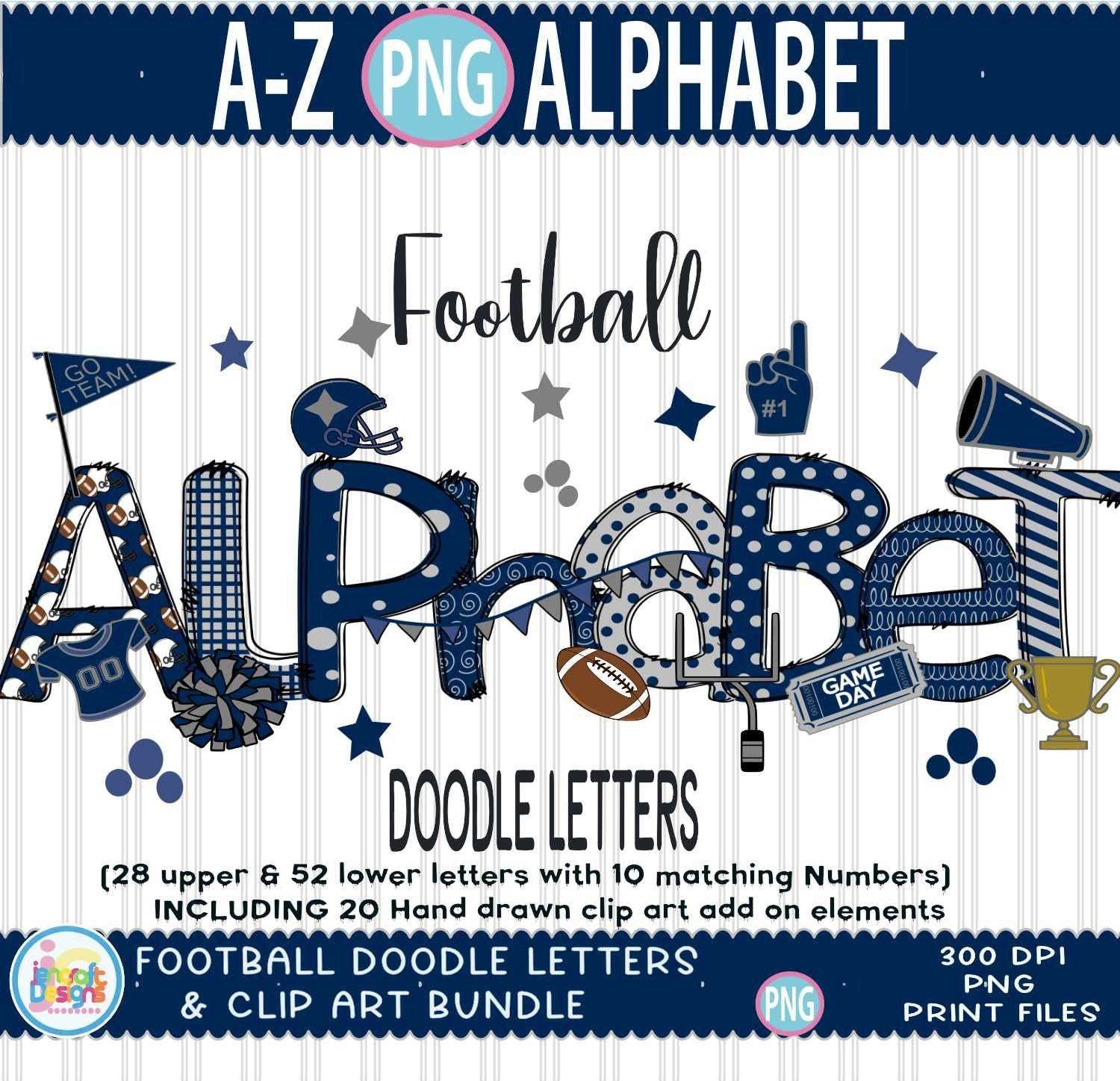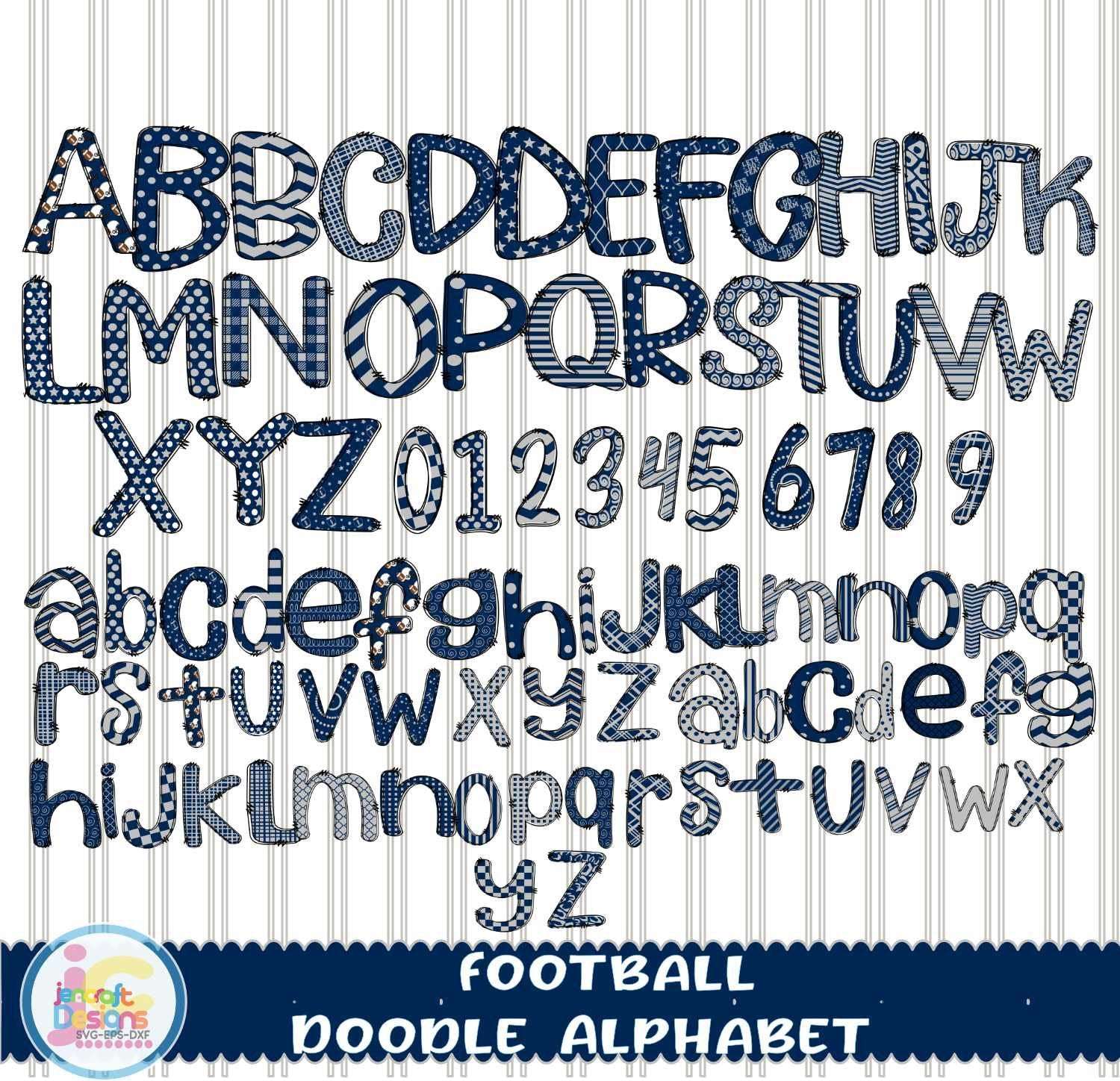
Football Doodle Letters PNG | Blue & Grey Alphabet Sublimation Bundle
Rep your team in style with this Blue & Grey Football Doodle Letters PNG Bundle — a hand-drawn game day alphabet set in bold blue and grey team colors, perfect for sublimation shirts, tumblers, tote bags, and all your football season crafts. Each letter is saved individually for easy drag-and-drop use!